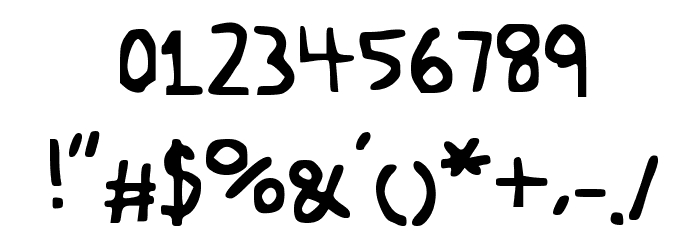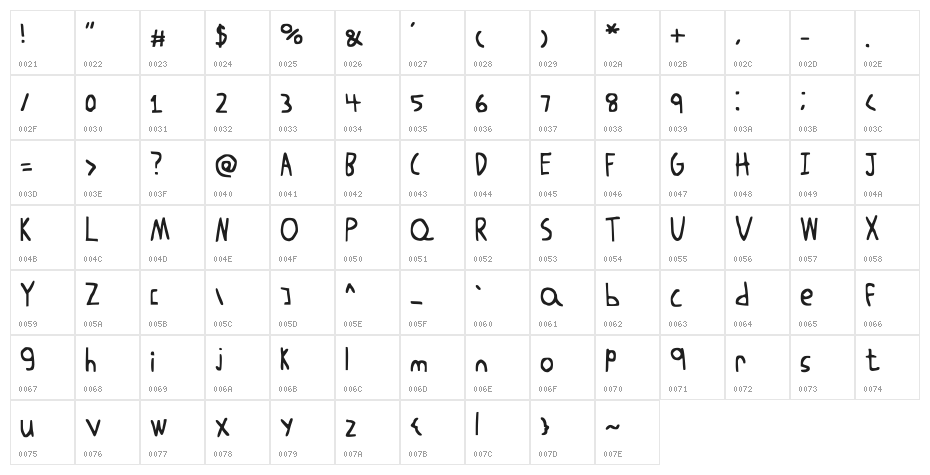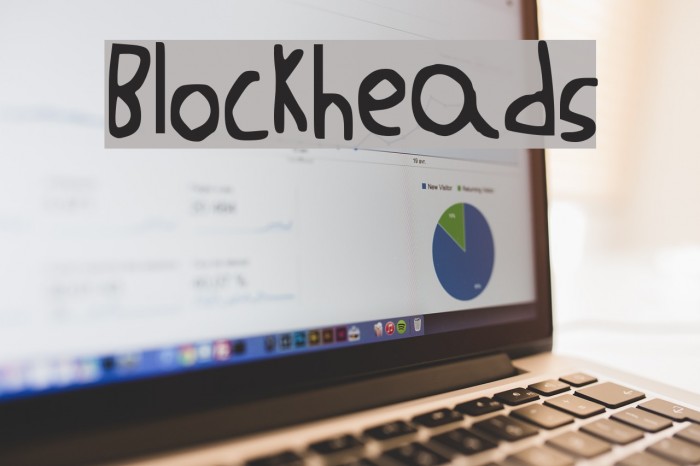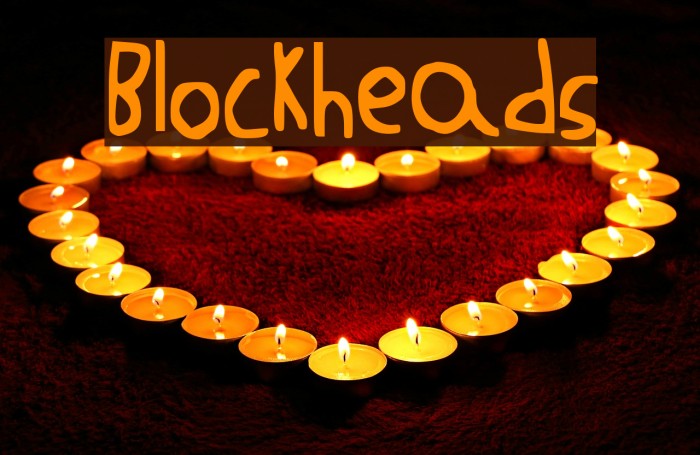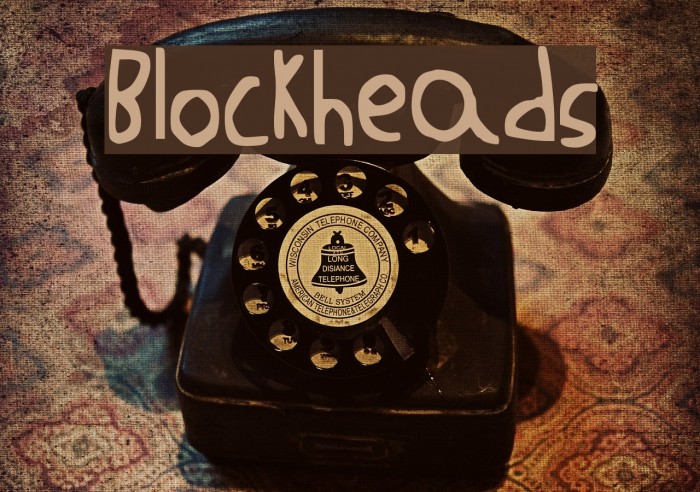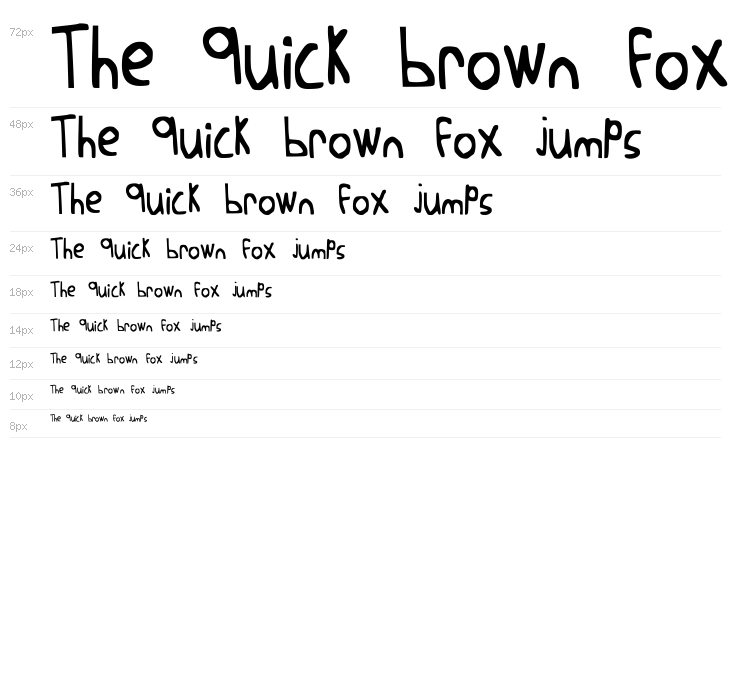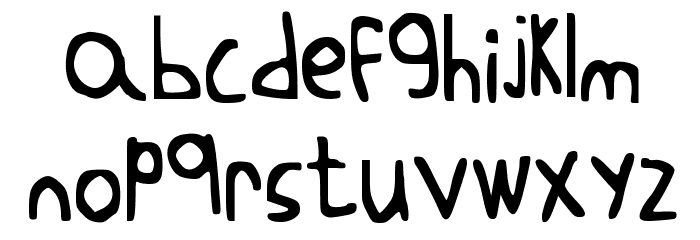
Blockheads Font
Blockheads Description
This playful and bold font features a hand-drawn, casual style with slightly irregular shapes, giving it a whimsical and approachable appearance. The letters are rounded and thick, with a consistent stroke width that maintains readability while adding a touch of personality. The uppercase and lowercase characters are distinct yet harmonious, making it versatile for various design needs. The numbers and special characters follow the same playful aesthetic, ensuring a cohesive look across all text elements. This font is ideal for projects that require a friendly and informal touch.
| Use Case | Headlines, Logos, Informal text |
| Proposed Projects | Children's books, comic strips, playful branding, greeting cards, and informal invitations. |